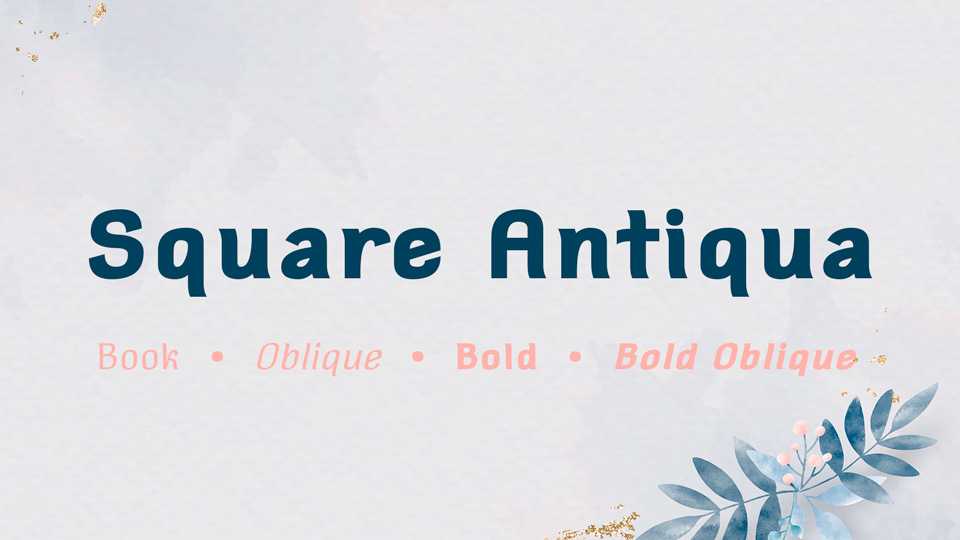
Download Square Antiqua typeface, a semi serif font family in 4 styles with a unique look. Square Antiqua font family is suitable for both text and headings.
Designer: Wojciech Kalinowski